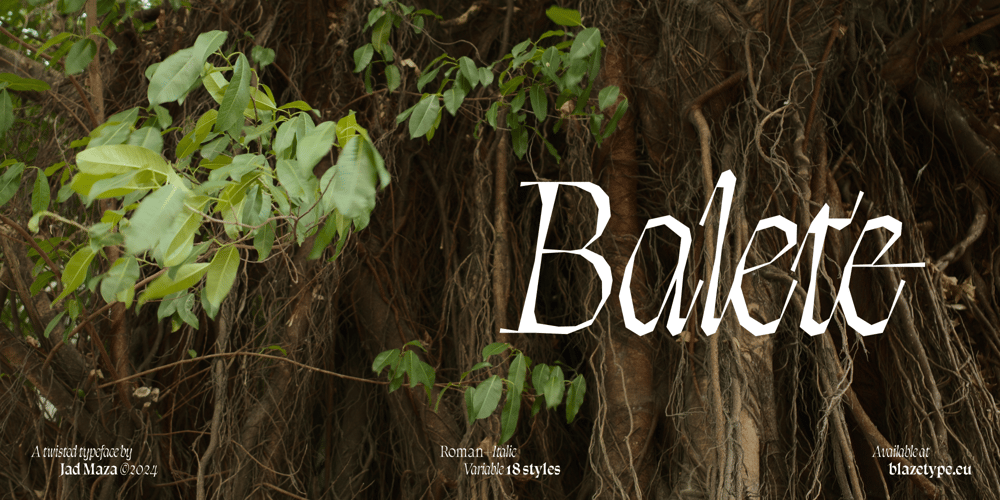
Balete
Balete font
Balete Font Family was designed by John David Maza and published by Blaze Type. Balete contains 18 styles and family package options. Balete is a typeface crafted with elegance and precision, blending natural fluidity with geometric refinement. Its design draws inspiration from traditional calligraphic forms and modernist typography, balancing graceful curves with sharp, structured details. This versatility makes Balete an exceptional choice for editorial layouts, branding, storytelling, and digital applications.Its lighter weights exude sophistication for long-form text, while bold styles command attention in headlines and logotypes. Balete thrives in print and digital mediums, from magazines and book covers to responsive websites and apps. With extensive character support and a timeless yet contemporary voice, Balete effortlessly bridges tradition and modernity, delivering clarity and style across all uses.